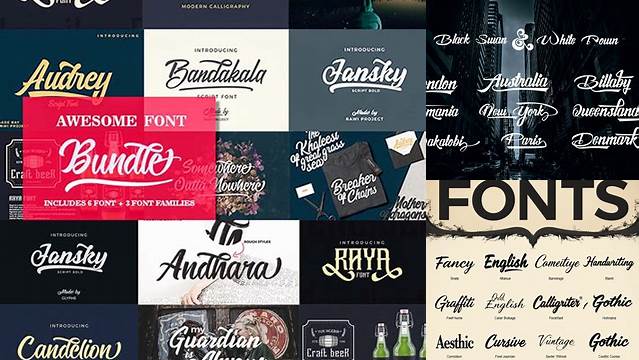
Free Font Downloads: Your Ultimate Guide
Awesome Free Font Download: Your Ultimate Guide to Typography Goodness
Hey guys! Are you on the hunt for some totally awesome free fonts to spice up your designs? Well, you've come to the right place! This guide is your one-stop shop for everything you need to know about snagging the best free fonts out there, how to use them, and where to find 'em. Let's dive in and explore the wonderful world of typography!
Understanding the Buzz Around Free Fonts
So, why are we all so obsessed with free fonts? It’s a valid question. Free font downloads are a game-changer for designers, bloggers, and anyone who wants to add some visual flair to their projects without breaking the bank. They offer a fantastic way to experiment with different styles, personalities, and vibes without any upfront costs. The beauty of it is, you get to try out a ton of options and see what clicks with your brand or project. Plus, with the right font, you can totally transform the look and feel of anything – a website, a presentation, a social media post – you name it! It’s like giving your work a complete makeover! But wait, there’s more! Free fonts aren’t just about saving money. They're also a great way to learn. By exploring different font families, you develop a deeper appreciation for typography and learn how different fonts can communicate different messages. This knowledge is super valuable whether you're a seasoned designer or just starting out. The best part? There are tons of websites offering free fonts, and it’s easier than ever to find the perfect font for your needs.
Where to Find the Best Free Font Downloads
Alright, let's get down to the nitty-gritty: where do you actually find these awesome free fonts? There are several websites that have a fantastic selection of free font downloads. Google Fonts is probably the most popular. It’s a Google-owned library with thousands of fonts, all open-source and completely free to use for personal and commercial projects. The fonts are well-organized, easy to browse, and you can even preview them in your text before you download. This is a great place to start if you are just getting started. Another fantastic option is Font Squirrel. They have a curated collection of high-quality, free fonts that are perfect for commercial use. They also make sure that all the fonts are 100% free and come with commercial licenses. Font Squirrel also offers a font identifier tool. If you see a font somewhere and you want to know what it is, you can upload an image of it. Next up is DaFont. It has a massive selection of fonts. It is super easy to browse by category, such as “script,” “serif,” “sans-serif,” and more. Before you download anything from DaFont, you’ll want to check the license. Some fonts are free for personal use but require a commercial license if you plan to use them for business purposes. Check the licenses on each font that you download, so that you aren't caught by surprise! Keep in mind that the quality of fonts can vary across different websites. Always ensure you're downloading from a reputable source to avoid any potential issues. Remember, safety first, friends!
Choosing the Right Font for Your Project
Okay, so you’ve found some killer free font downloads. Now what? Choosing the right font can be a bit of an art form, but don’t worry; it's not as scary as it sounds. First, consider your project's purpose. Are you designing a logo, a website, or a poster? Each project will have different requirements. Think about your target audience. What kind of style would resonate with them? A playful font might be great for a kid’s website, but not so much for a law firm's website. Make sure you match the font style with the project vibe. Next, think about readability. You’ll want to make sure that your text is easy to read. For body text, choose fonts with clear letterforms, and avoid anything too fancy or ornate. Experiment with different font pairings. Combining two fonts can create visual interest. A good rule of thumb is to pair a serif font (like Times New Roman) with a sans-serif font (like Arial). Test out different sizes and weights. Once you’ve got the fonts, play around with different sizes and weights (like bold or italic). This will help you find the perfect balance. A small font can make it difficult for your audience to read. Pay attention to the kerning (the space between letters) and leading (the space between lines). These details can affect your design's readability and overall look. Choose a font that reflects your brand's personality. Your font should be consistent with your brand. If your brand is friendly and approachable, choose a font that is similar. Always try to match your content with the personality that your font suggests.
Tips for Using Your Free Fonts Like a Pro
Now that you’ve got your free font downloads and know the rules, here are some tips to make your designs pop! First, keep it simple. Don’t go overboard with fonts. Stick to two or three fonts max. Mixing too many fonts can make your design look messy. Choose fonts that complement each other. Choose fonts that create a visual hierarchy. Use different sizes, weights, and styles to create contrast and guide your reader’s eye. Use the fonts effectively. Use the fonts for headings, subheadings, and body text. Make sure you select the proper font for each of these purposes. For headings, select bold, eye-catching fonts. For body text, select a font that is easy to read. Optimize readability. Make sure your text is easy to read! Use generous line spacing, and avoid long blocks of text. Use appropriate font sizes. Be mindful of the context. Remember, what works for one project might not work for another. Ensure your font is appropriate for the purpose! Check out your design on different devices. Is it still readable? Do a final check to make sure everything looks good across multiple platforms. Remember, choosing the right font and using it effectively can have a major impact on your designs. You got this!
Avoiding Common Font Pitfalls
Alright, guys, let’s talk about some common mistakes you should avoid when using your free font downloads. First, don't overuse the fonts. If you use too many fonts, you can make your design look messy and unprofessional. Try to stick to two or three fonts. Choose the right font for the job. Don’t use a font that is not appropriate for the purpose of your project. Make sure that you are using a font that complements the overall style. Don't forget about readability. If your text is not easy to read, then your audience might not be able to see your content. Ensure your font is easy to read. Pay attention to licensing. Make sure you understand the terms of the license before using the font. You don’t want to accidentally violate the license and get into trouble. Proofread your work! Always proofread your work for typos and errors. Check the kerning, leading, and tracking of the font. Be consistent. Make sure that your fonts are consistent throughout your design. If you are going to use a font for the headings, then use that font for all your headings.
The Future of Free Fonts
What does the future hold for free font downloads? Well, it’s looking bright! We're seeing more and more high-quality free fonts being released, and the trend is expected to continue. Designers are constantly creating and sharing their work, making it easier than ever to find amazing fonts. Expect to see more open-source projects, as well as more font foundries offering free fonts. AI and machine learning are also playing a role in the font design and discovery process. These technologies are helping designers create new fonts and find the perfect fonts for their needs. More focus will be on accessibility. This means that there will be a greater emphasis on fonts that are easy to read and can be used by people with disabilities. This trend means that the best is yet to come. The world of free fonts is continually evolving! Stay tuned for more exciting developments in the future!